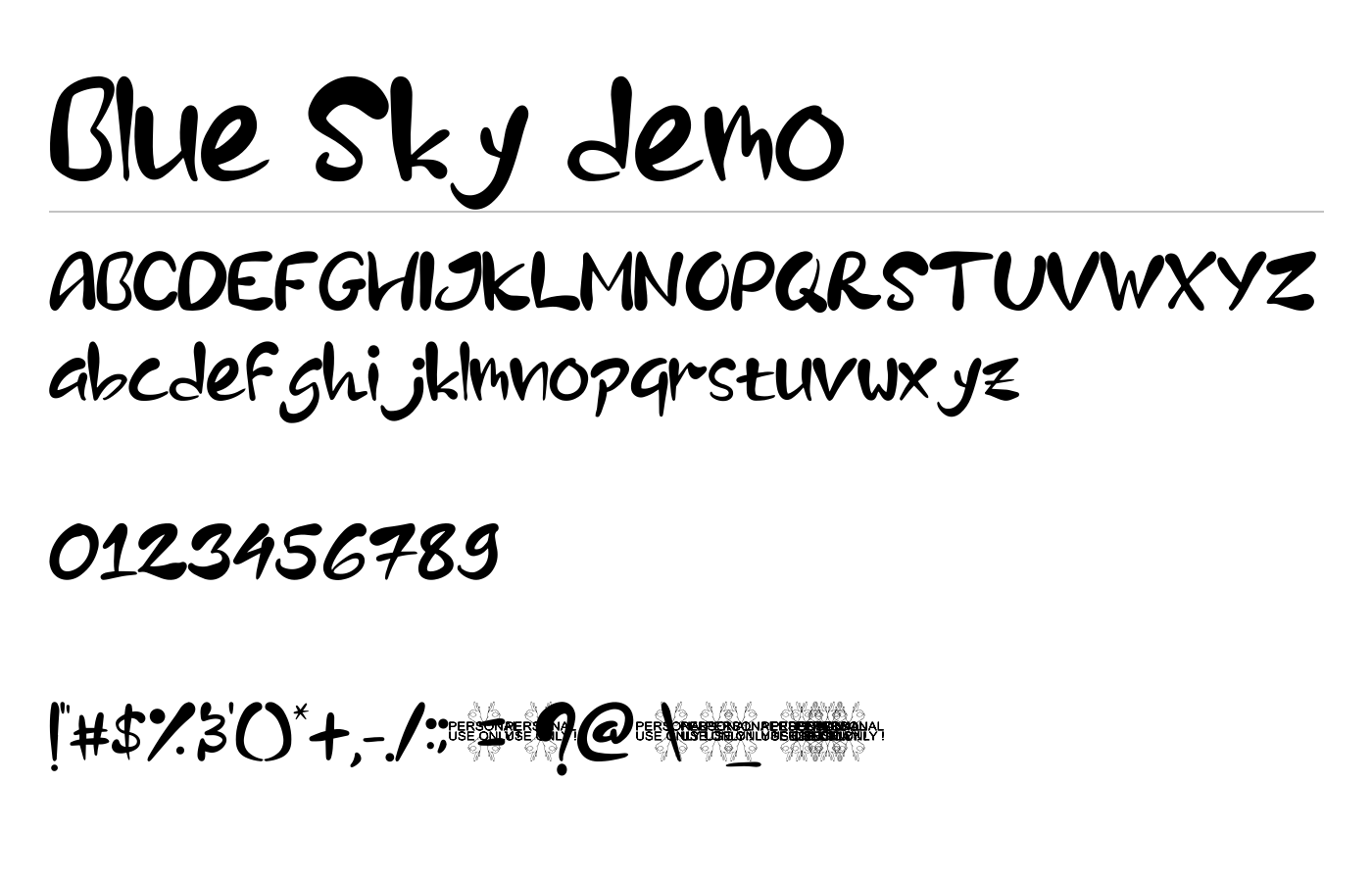
Blue Sky demo is a playful, casual handwritten font that brings a friendly and approachable vibe to any design. Its slightly uneven strokes and informal style make it perfect for creative projects, children’s materials, and anything that benefits from a personal, relaxed touch. This font works best in headlines, posters, and informal branding where a warm, human feel is desired.
Blue Sky demo Font
About Blue Sky demo Font